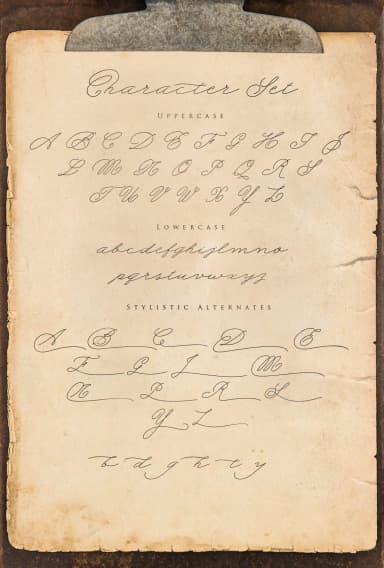
My Dear by Storic is a calligraphic script that channels the warmth and intimacy of handwritten correspondence from bygone eras. Drawing from the expressive letterforms found on vintage postcards and in historical manuscripts, this monoline typeface brings an authentic, genuinely personal quality to contemporary design work without sacrificing legibility or refined execution.
The font excels at creating authentic vintage stationery suites, from personalized wedding invitation sets with genuine character to hand-addressed envelope styling that feels individually crafted. It's equally suited for designing custom greeting cards that convey warmth and intention, crafting boutique product labels that communicate artisanal quality and care, or developing romantic packaging for handmade cosmetics and indie skincare collections. The consistent monoline construction delivers reliable weight throughout, ensuring smooth rendering whether you're working at large display sizes or smaller application scales.
My Dear brings a nostalgic sensibility that feels intentional rather than merely derivative of period styles. Whether you're developing a heritage brand identity, designing limited-edition product packaging, or simply want your lettering to feel more human-centered and grounded in handcraft traditions, this typeface offers the classic refinement needed for projects that celebrate personal connection. Discover My Dear on Creative Fabrica and add vintage-inspired authenticity to your next creative project.
My Dear Font is a script font that shines as a display or heading face. Pair it with a clean sans-serif or serif font for body text β the contrast creates a clear hierarchy while the two styles stay balanced and easy to read.